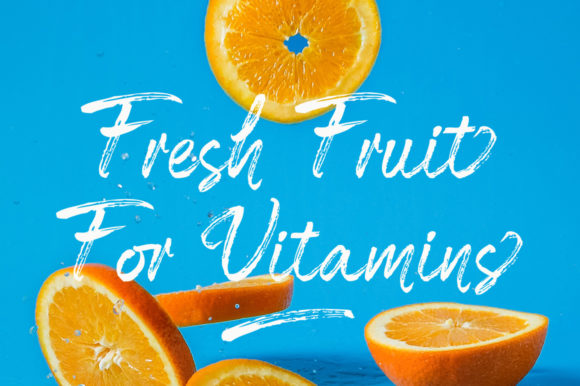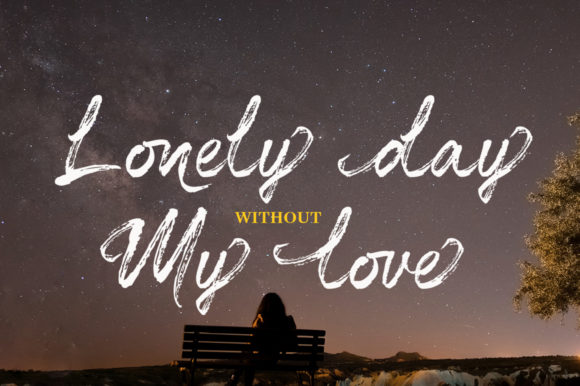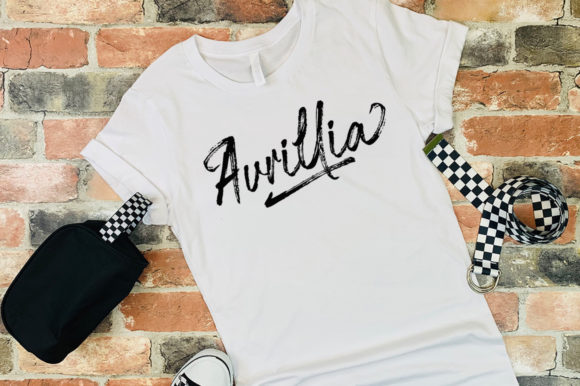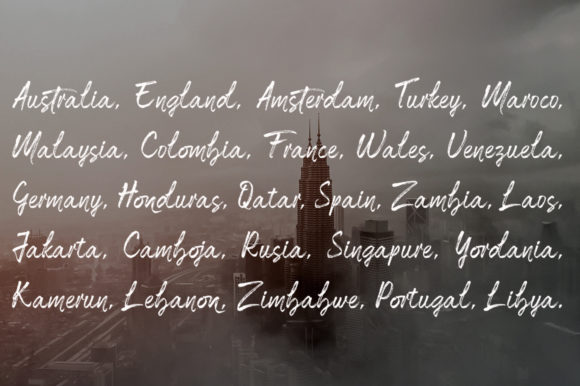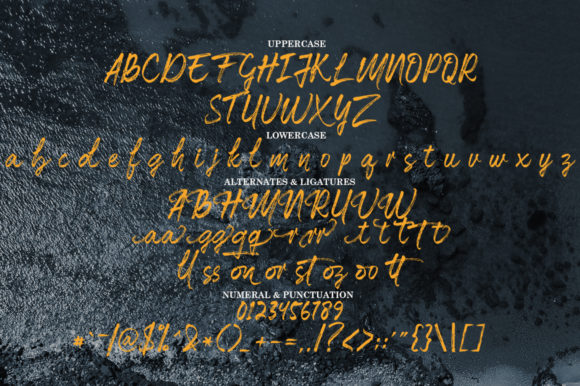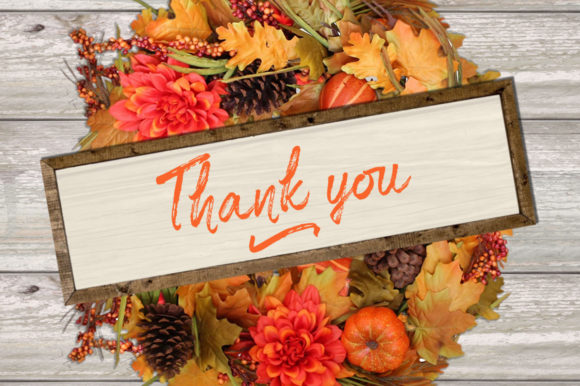
Introduction to Matteona Font
Matteona features an incredibly contemporary style due to its dry brush style.
Ignite your creativity with its imaginative look .
Key Features of Matteona Font